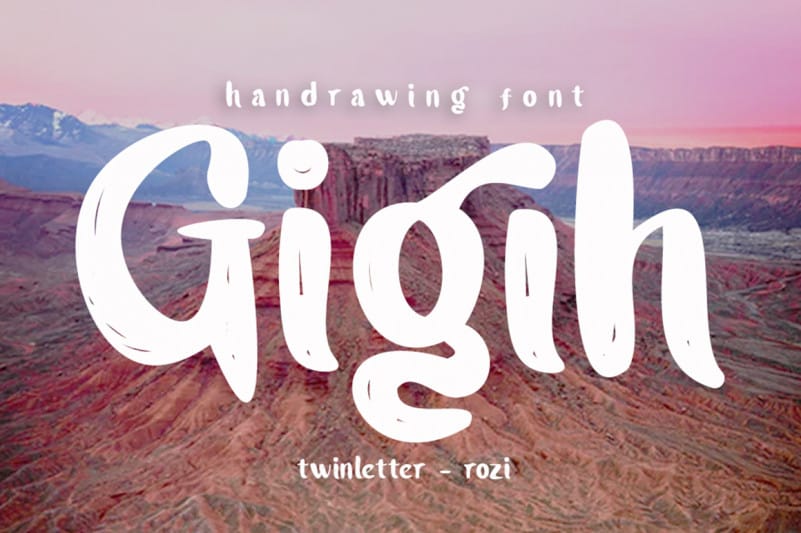
Gigih Brush Font
Gigih Brush Font is a casual, fun handwritten font. Clean and modern, this font is the perfect fit for all of your logos, branding, social media, and crafty DIY projects.